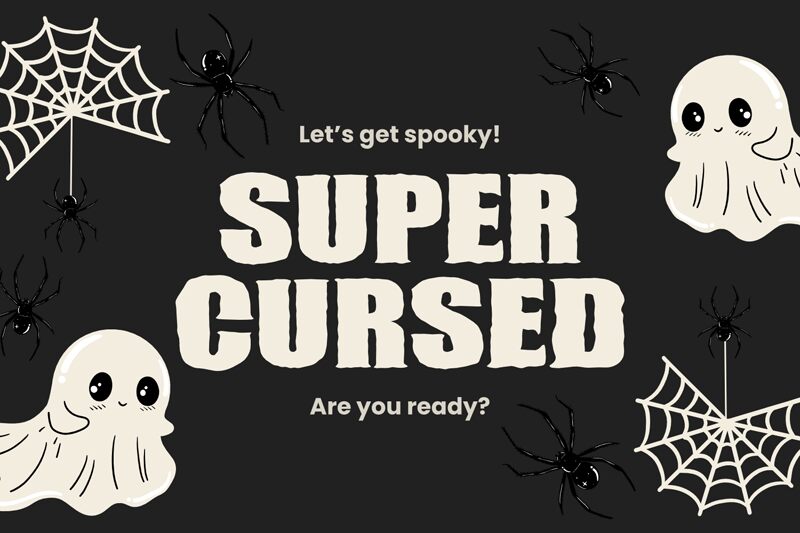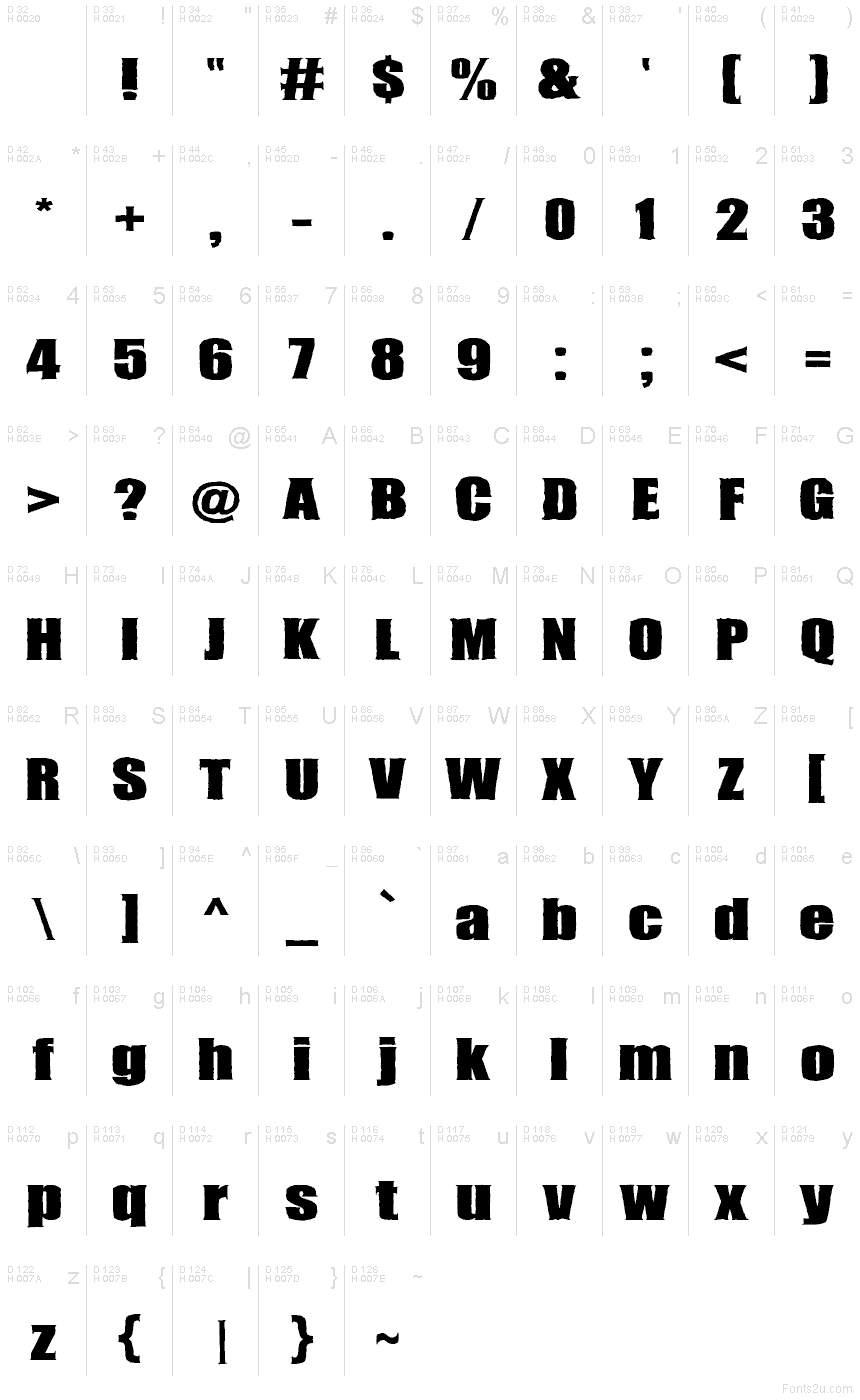
Super Cursed
Super Cursed font by fsuarez913 is a free Halloween typeface. Thick, ink-soaked letters look stamped and scuffed, with choppy edges and splatters that read like a haunted woodcut. The weight is assertive yet legible, so you get that grimy, haunted vibe without sacrificing clarity when the headline needs to hit hard.
Using Super Cursed, you can power up haunted house flyers, trick‑or‑treat posters, party invites, horror thumbnails, escape room branding, and spooky merch. The tight rhythm and gritty texture add instant mood, especially at larger sizes. For balance, pair this free font with a clean, neutral sans-serif for body copy or captions.